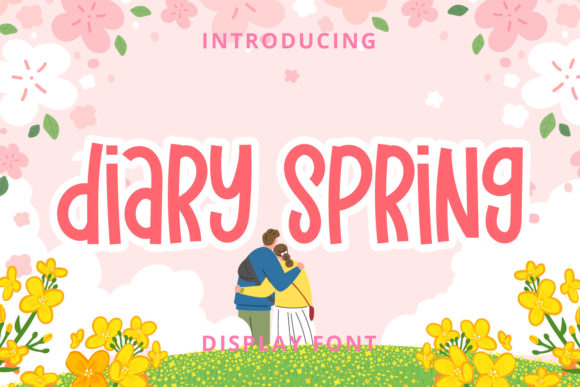
Introducing Diary Spring Font: The Playful and Cute Display Font You Need
Are you a designer, crafter, or digital artist looking for a font that can add a touch of playfulness and cuteness to your projects? Look no further than Diary Spring Font! This delightful display font is perfect for a wide range of applications, from crafts and digital design to presentations and greeting cards. In this article, we’ll take a closer look at Diary Spring Font and explore its features, benefits, and uses.
What is Diary Spring Font?
Diary Spring Font is a modern, hand-drawn display font that exudes a sense of playfulness and charm. Its unique and quirky design makes it perfect for projects that require a personal touch. The font features rounded edges, bouncy curves, and a carefree spirit that’s sure to capture the hearts of designers, crafters, and audiences alike.
Key Features of Diary Spring Font
- Playful and Cute: Diary Spring Font is designed to add a touch of whimsy and fun to your projects. Its playful and cute design makes it perfect for kids’ crafts, party invitations, and other creative endeavors.
- Versatile: This font is incredibly versatile and can be used for a wide range of applications, including digital design, presentations, greeting cards, and more.
- Easy to Read: Despite its playful design, Diary Spring Font is easy to read and understand, making it perfect for headlines, titles, and short paragraphs.
- High-Quality: Diary Spring Font is a high-quality font that is designed to deliver exceptional results. Its smooth curves and precise lines ensure that your projects look professional and polished.
Benefits of Using Diary Spring Font
So, why should you choose Diary Spring Font for your next project? Here are just a few benefits of using this delightful font:
- Adds a Personal Touch: Diary Spring Font adds a personal touch to your projects, making them more relatable and engaging.
- Perfect for Kids’ Projects: The font’s playful design makes it perfect for kids’ crafts, party invitations, and other projects that require a fun and youthful touch.
- Great for Digital Design: Diary Spring Font is optimized for digital use, making it perfect for social media graphics, blog posts, and other online applications.
- Easy to Pair: This font pairs well with a wide range of other fonts, making it easy to create visually appealing combinations.
Uses for Diary Spring Font
Diary Spring Font is an incredibly versatile font that can be used for a wide range of applications. Here are just a few ideas to get you started:
- Crafts: Use Diary Spring Font to add a personal touch to your crafts, such as scrapbooking, card making, and other paper crafts.
- Digital Design: This font is perfect for digital design projects, including social media graphics, blog posts, and website headers.
- Presentations: Add a touch of playfulness to your presentations with Diary Spring Font. It’s perfect for titles, headings, and bullet points.
- Greeting Cards: Use Diary Spring Font to create adorable greeting cards for birthdays, holidays, and other special occasions.
In conclusion, Diary Spring Font is a playful and cute display font that is perfect for designers, crafters, and digital artists. Its unique and quirky design makes it perfect for a wide range of applications, from crafts and digital design to presentations and greeting cards. With its ease of use, versatility, and high-quality design, Diary Spring Font is sure to become your go-to font for all your creative projects.